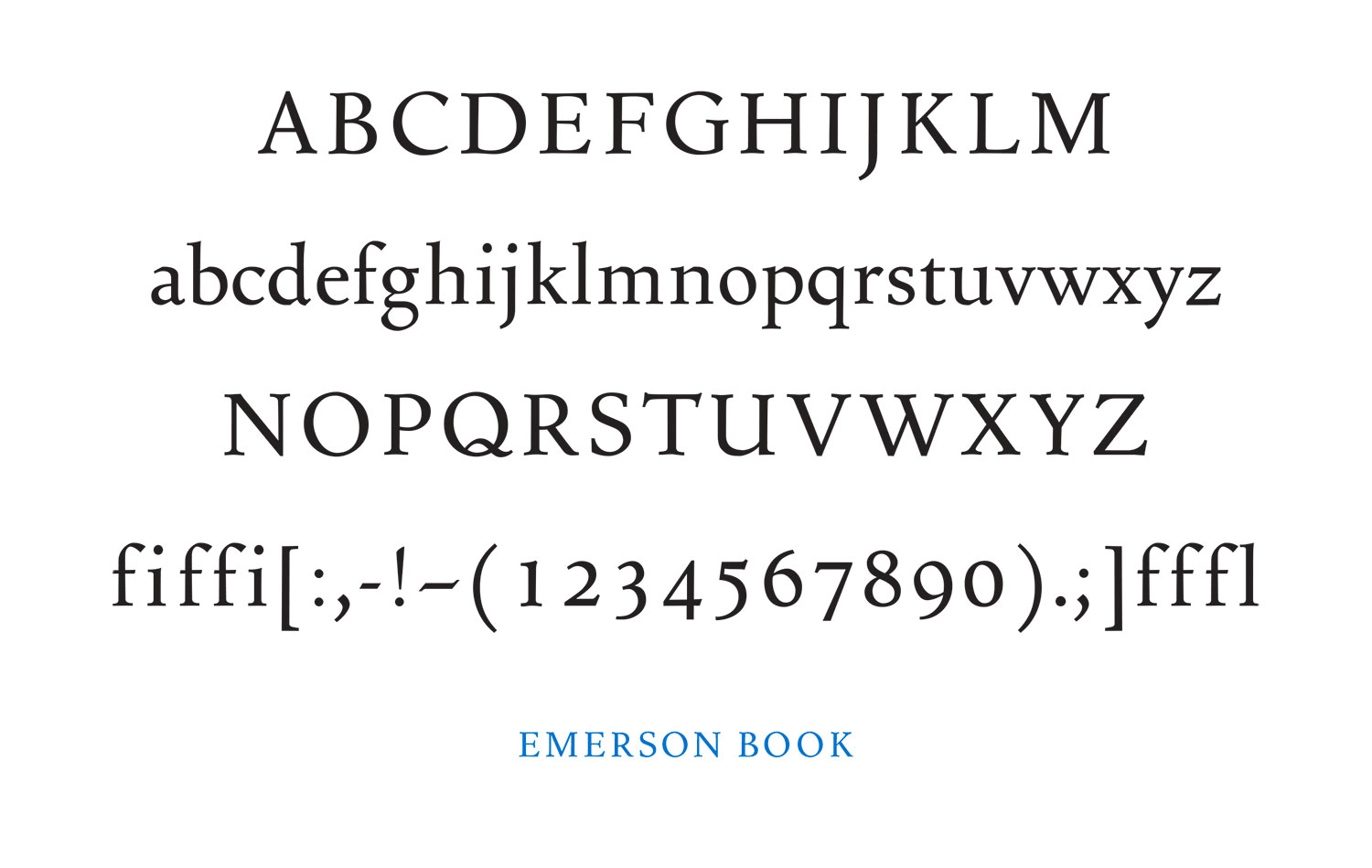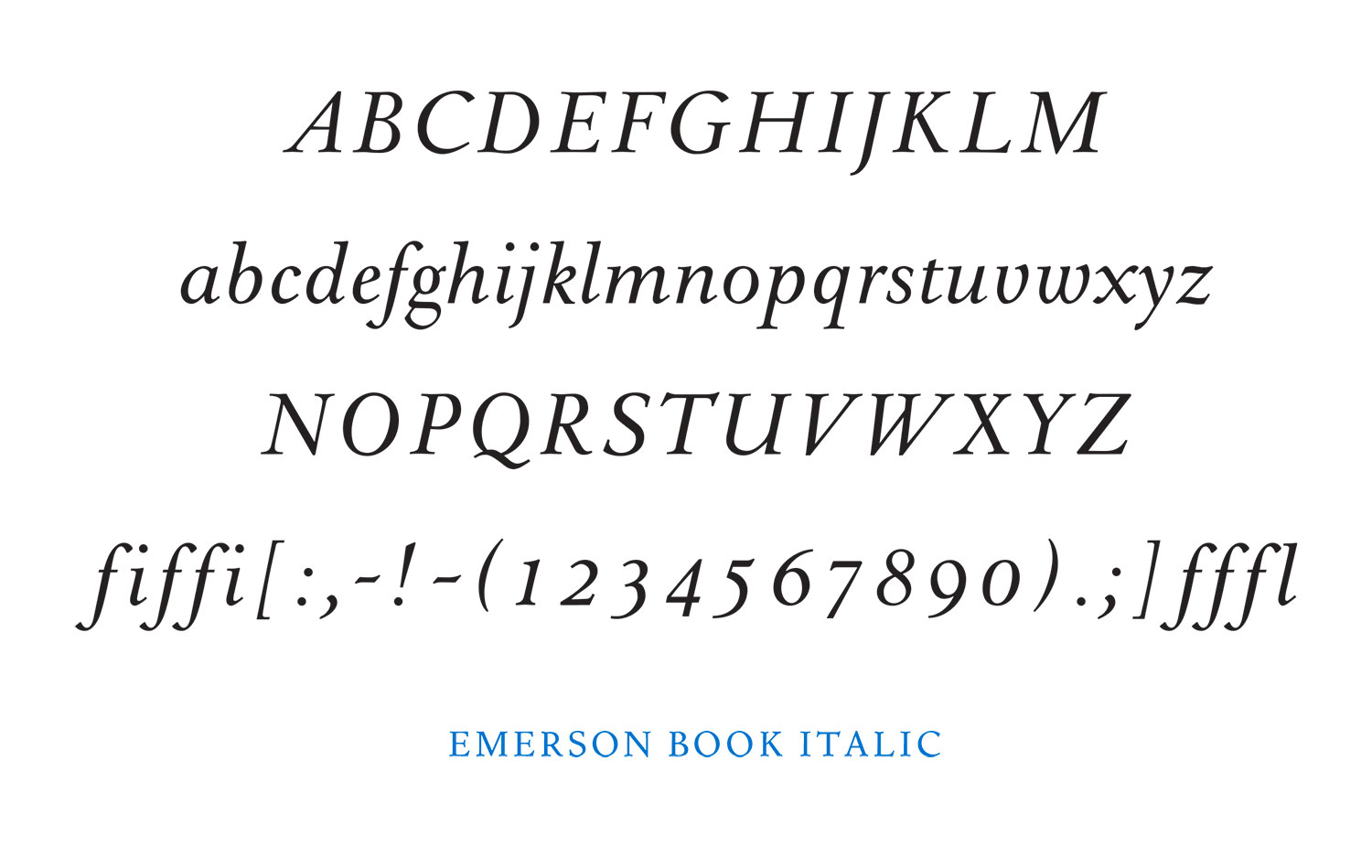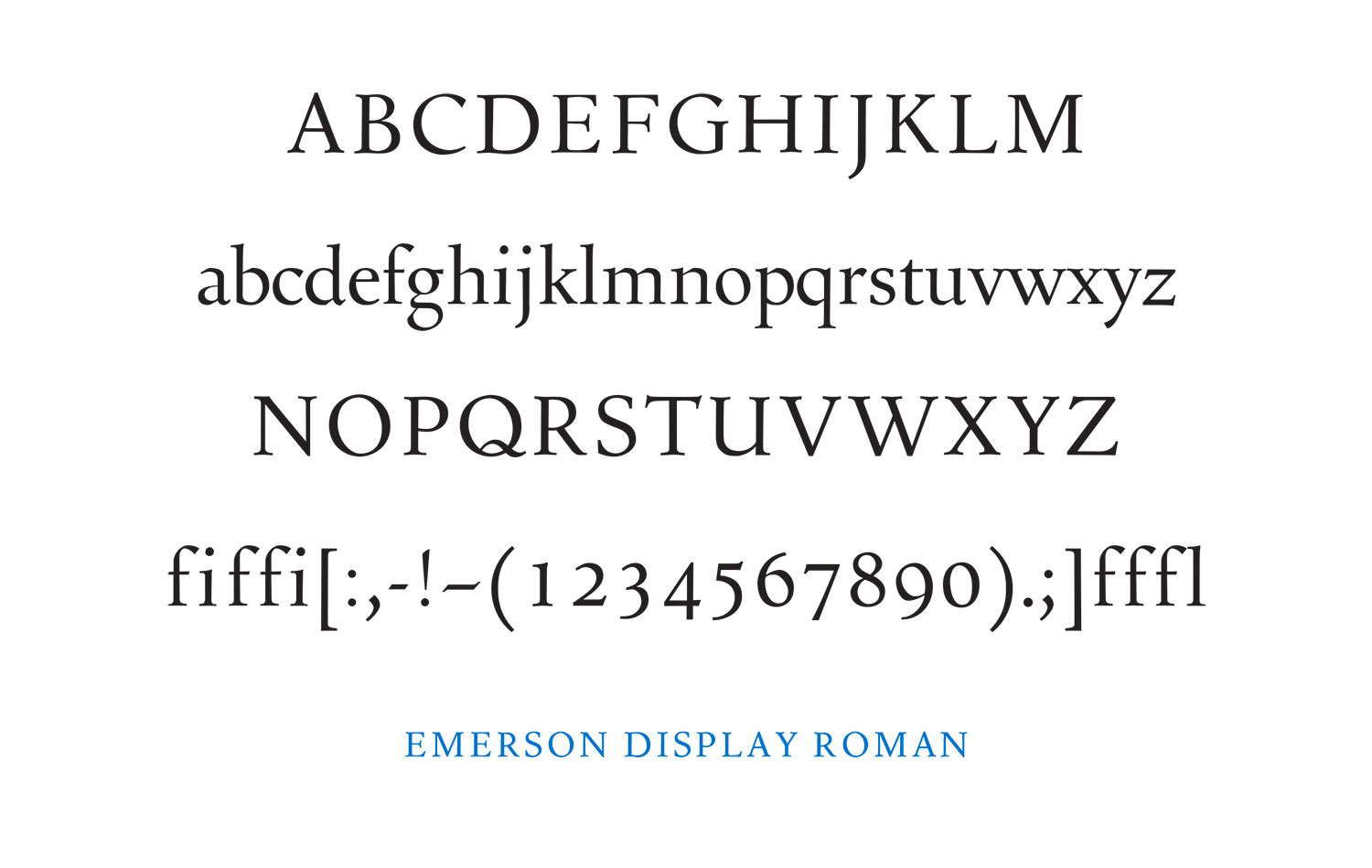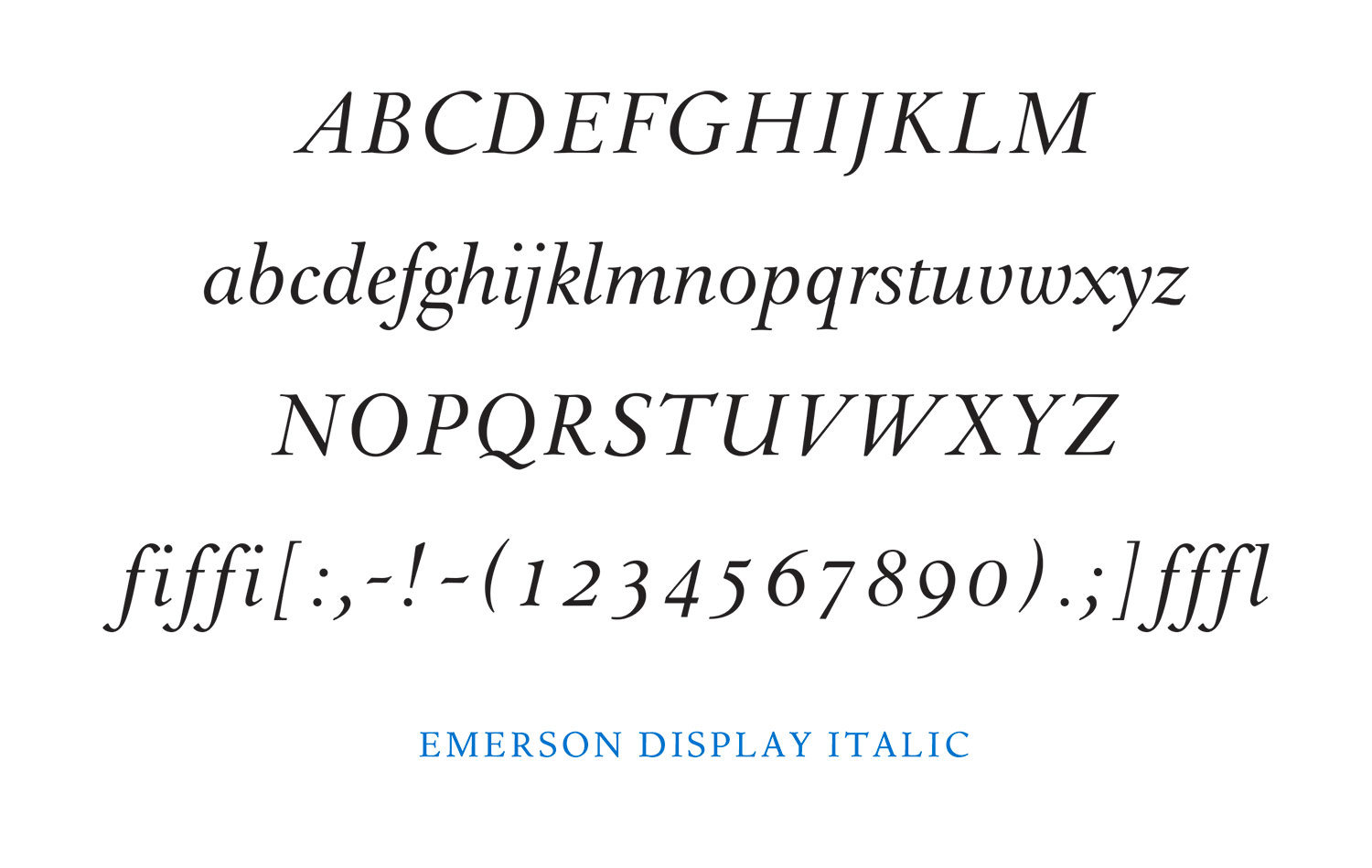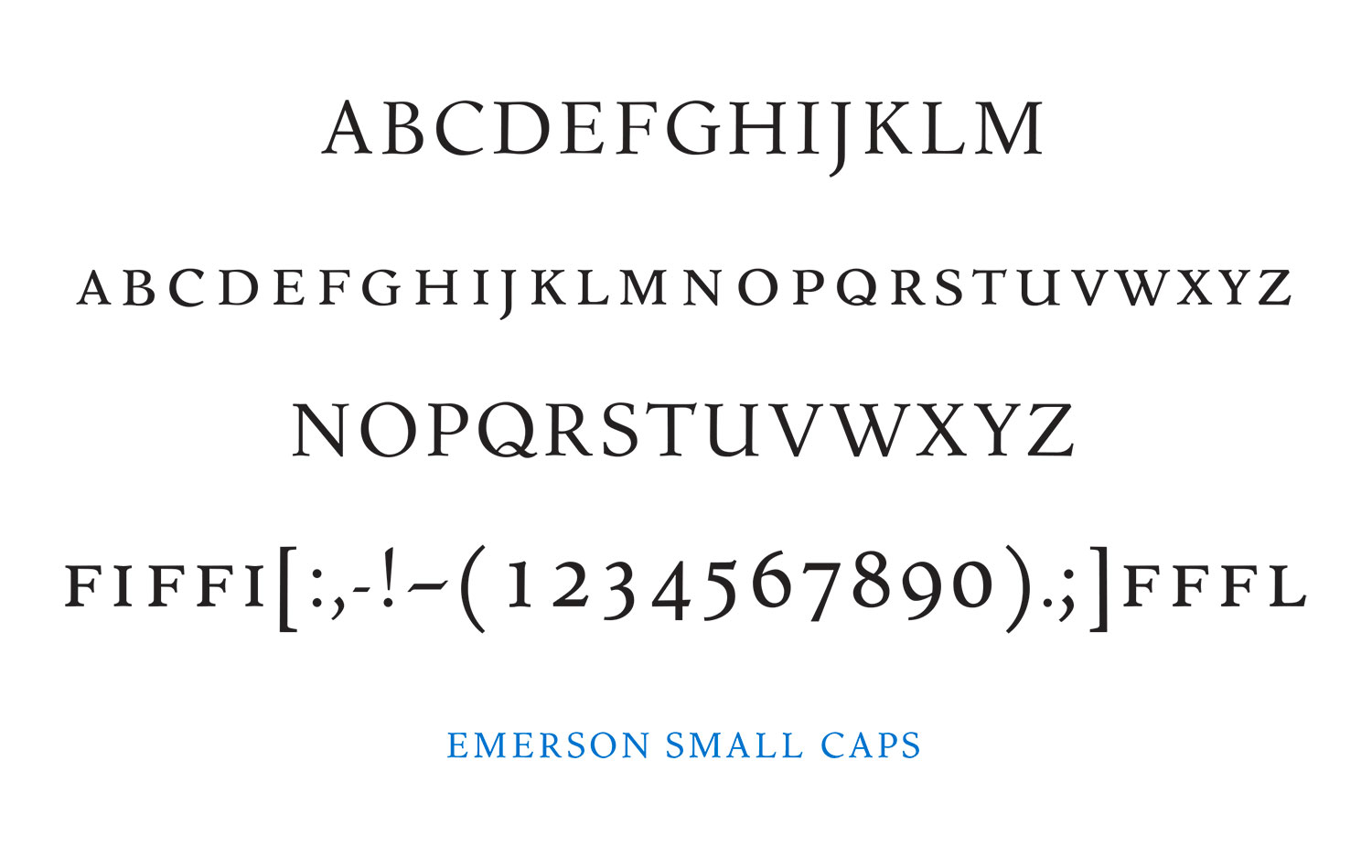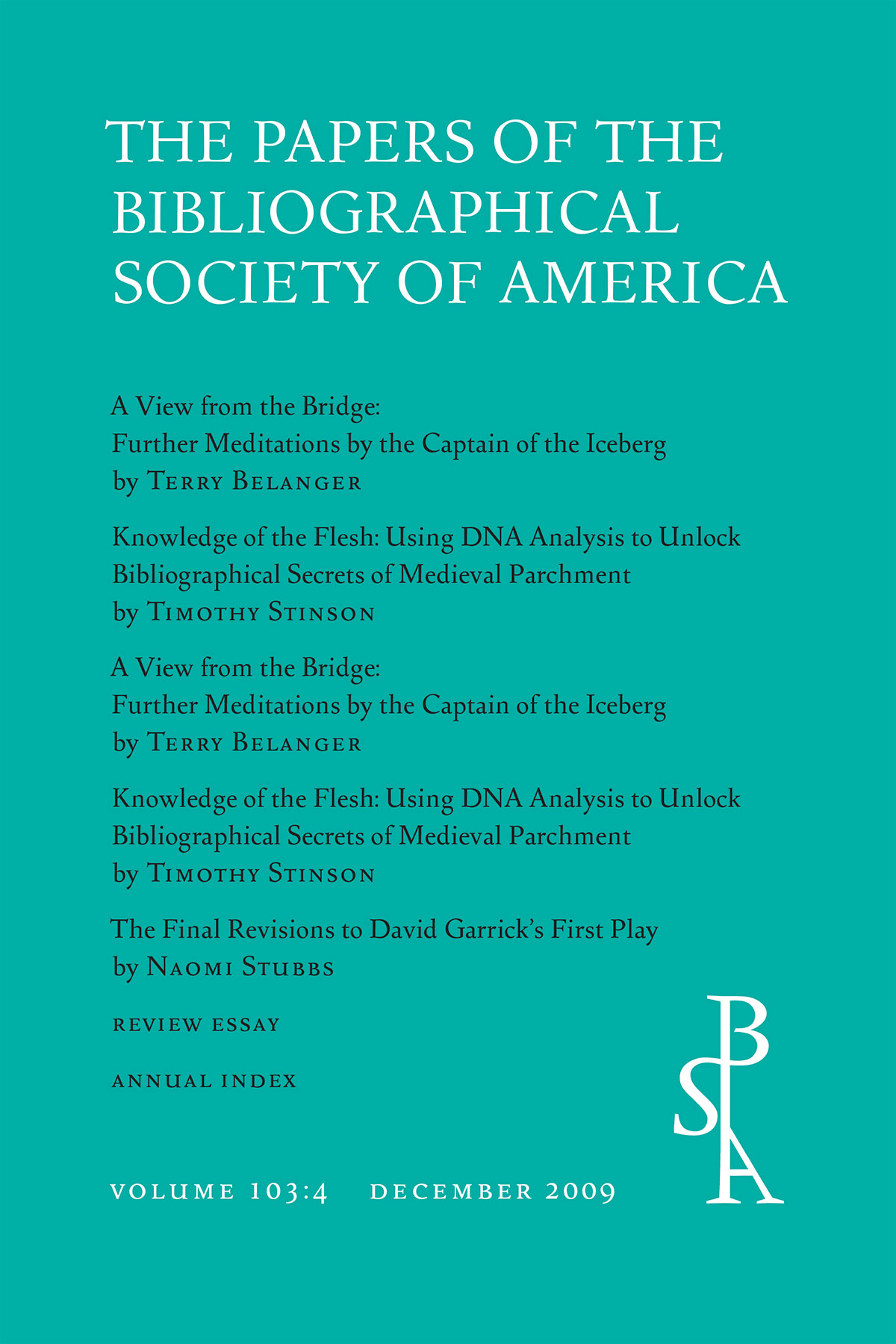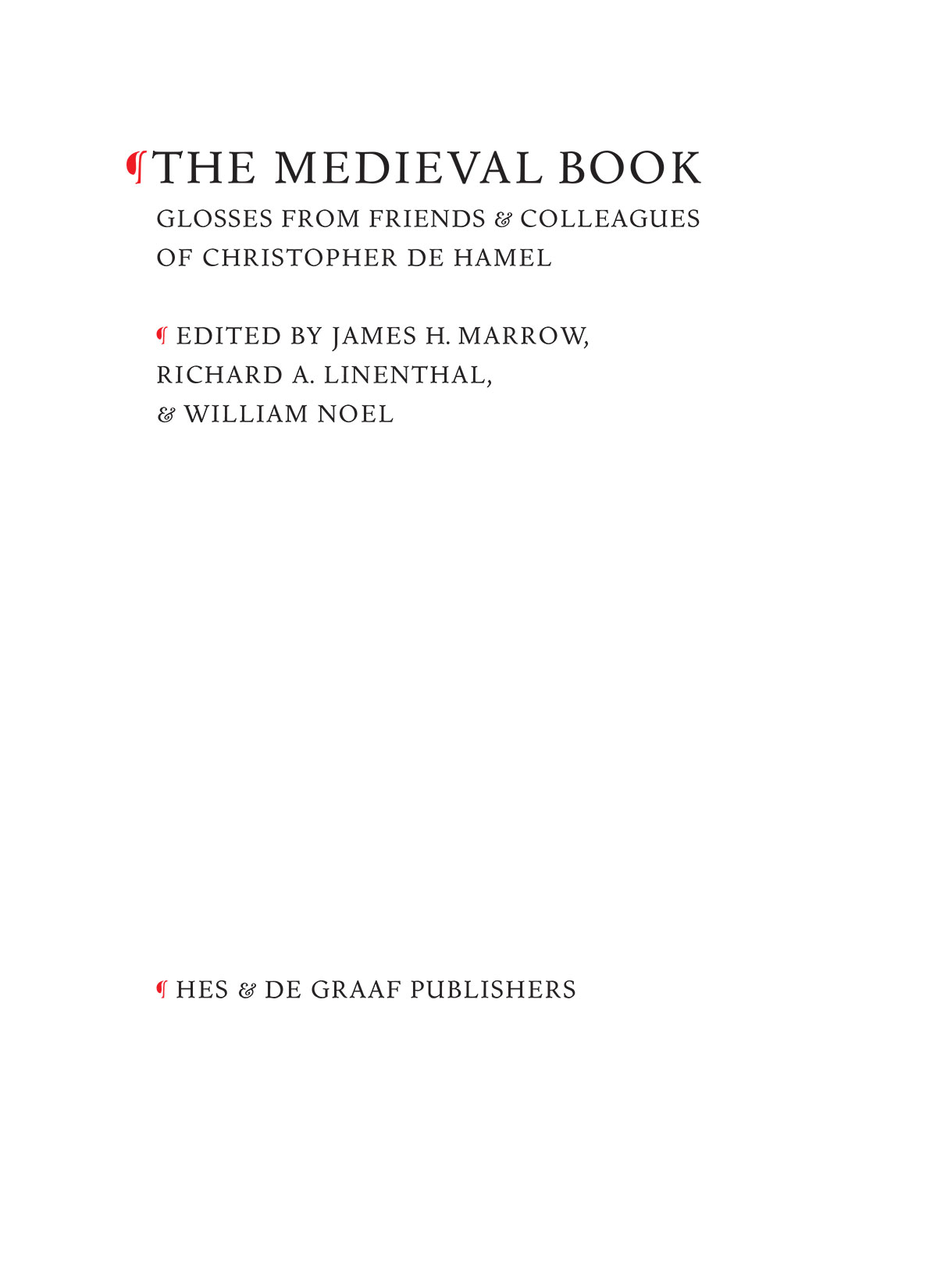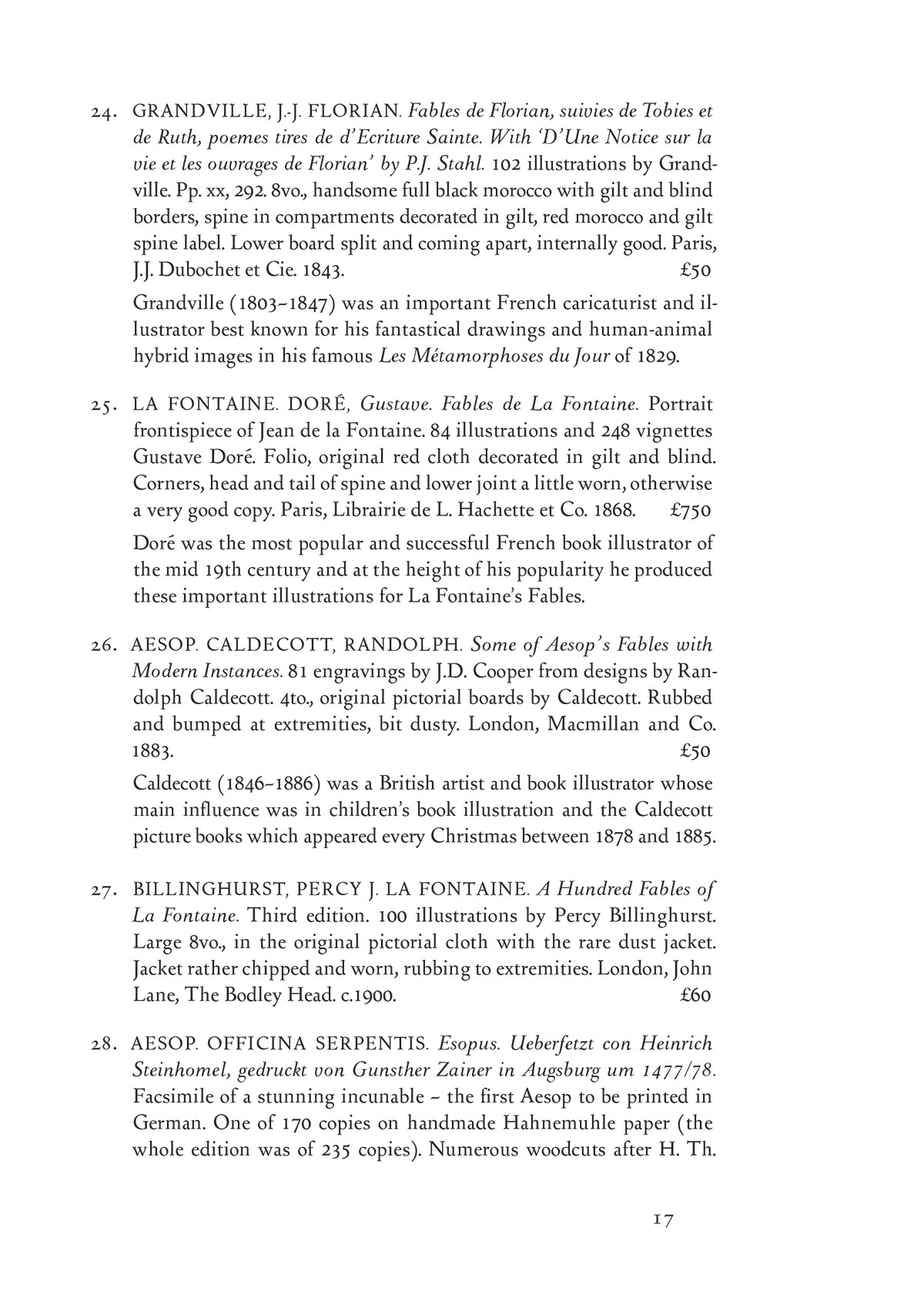
Emerson Font Family
The Emerson type was designed by Joseph Blumenthal (proprietor of the famous Spiral Press in New York) in the 1930s. Originally cut by hand in metal under the name “Spiral,” the font was soon after released for machine composition under the name “Emerson” (after the hand-printed Spiral Press edition of Nature by Ralph Waldo Emerson). Small caps and an Italic were added for the hot type version.
When originally reviewed in Signature in England the writer commented on how Emerson, with its strong serifs and good weight, was well suited for offset and other printing methods; aside from the then-dominant letterpress: “The open counters, absence of fine lines and sturdy, though not heavy, serifs make it particularly suitable for offset and gravure reproduction.” With that in mind it is ironic that Emerson is the only one of the typefaces deemed among the twenty classics by Monotype that had not been offered in a digital version — until now.